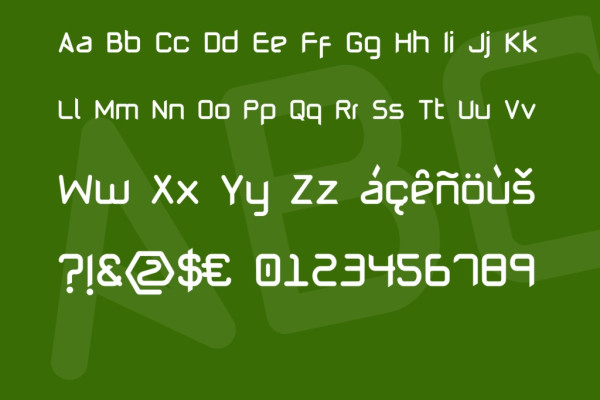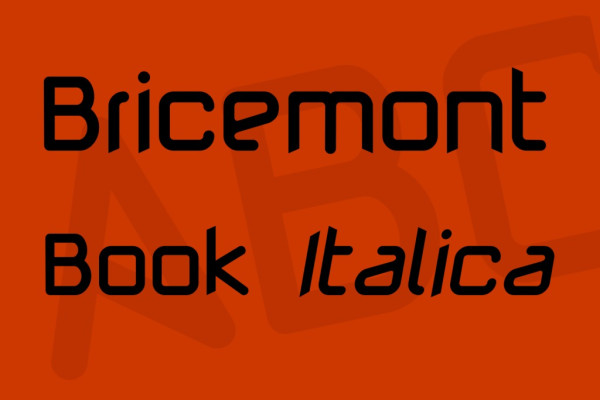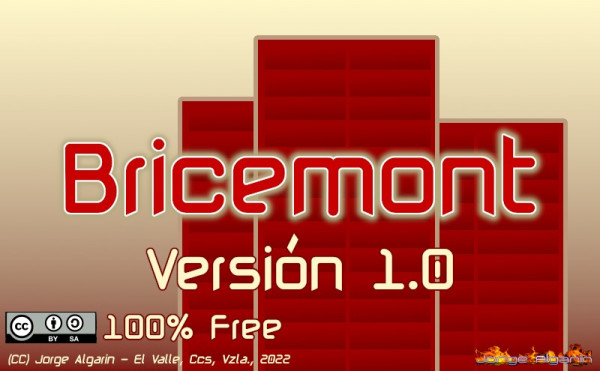
Bricemont Font
Bricemont Font, This bundle features strong, confident and powerful typefaces designed to work great with sports logos, club branding, apparel applications, labels and more. Please download and enjoy, thank you, and don’t forget to check out our other products.